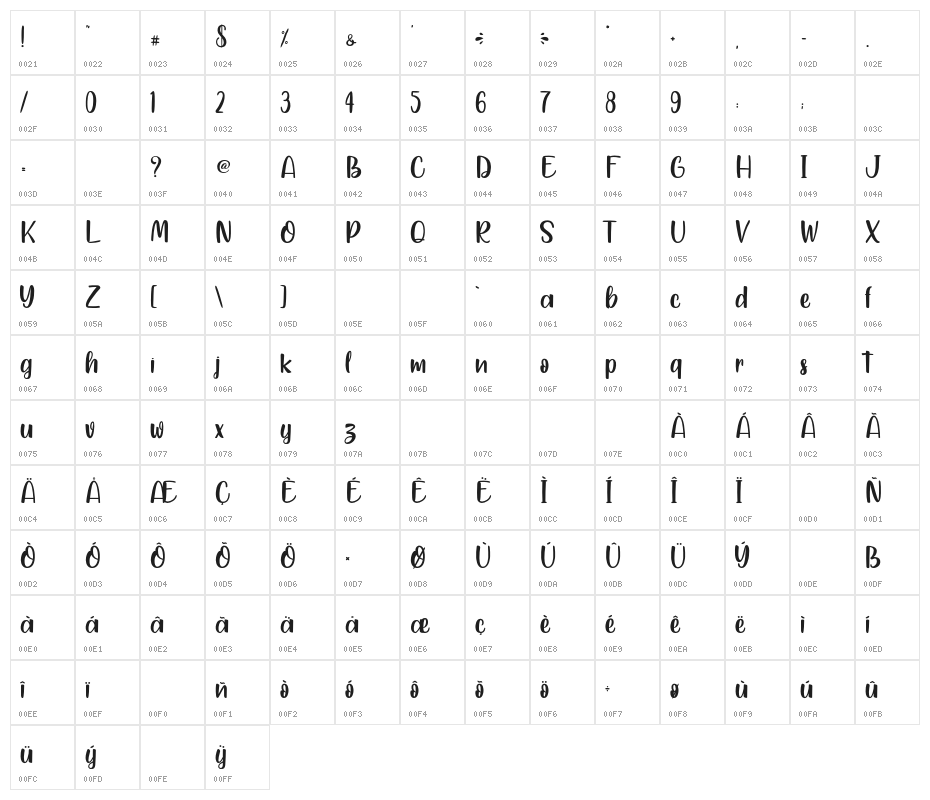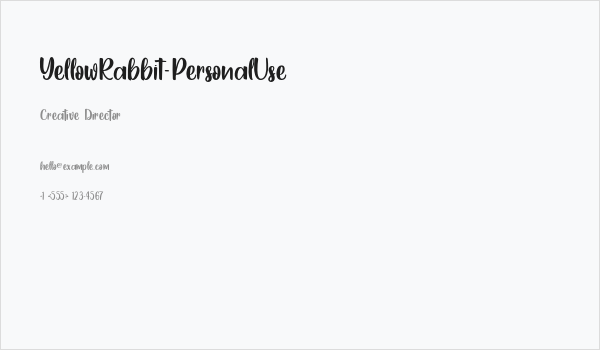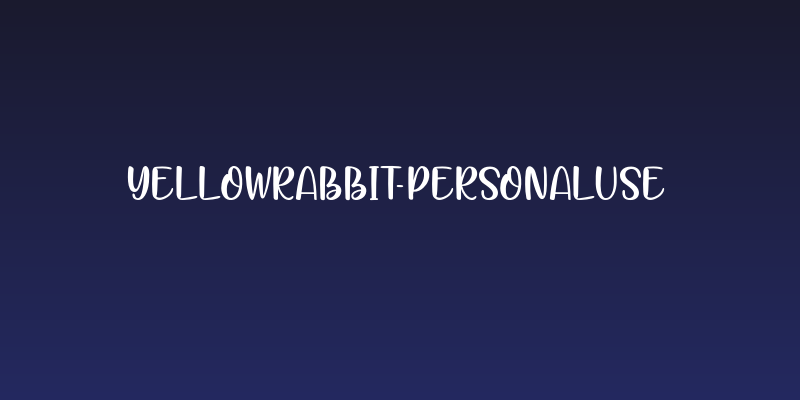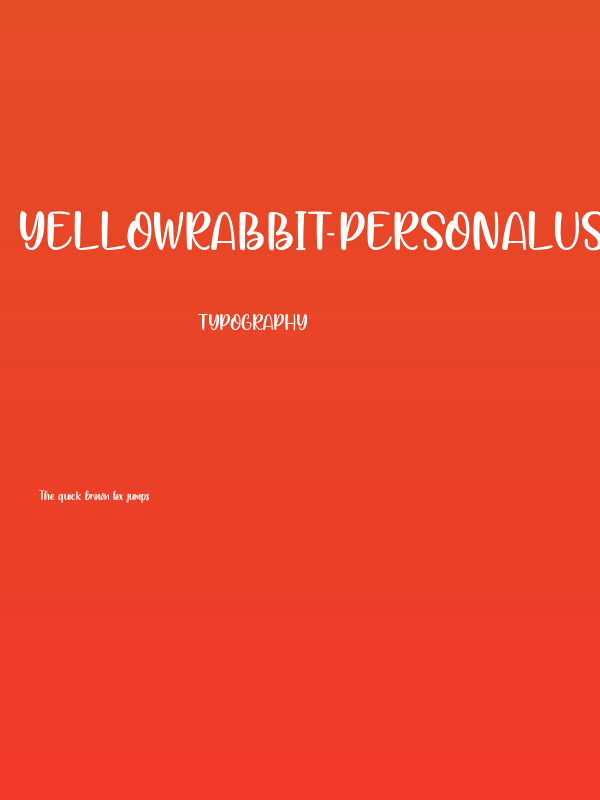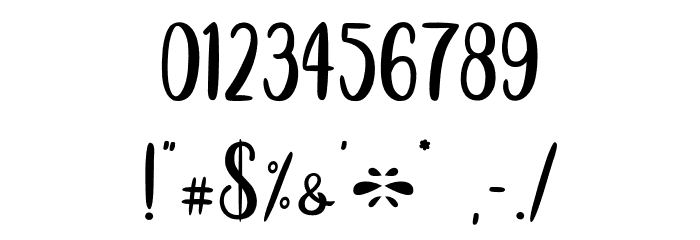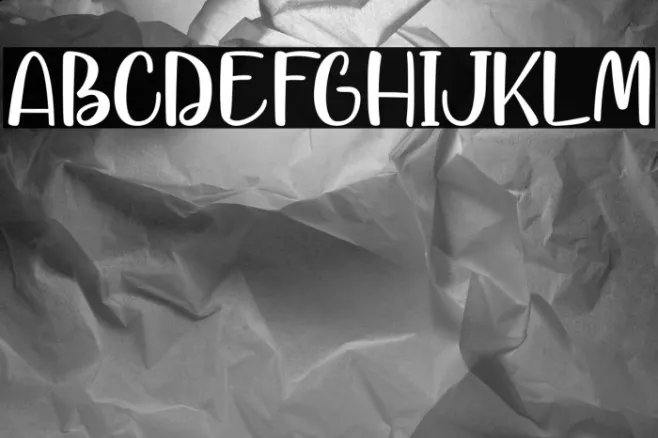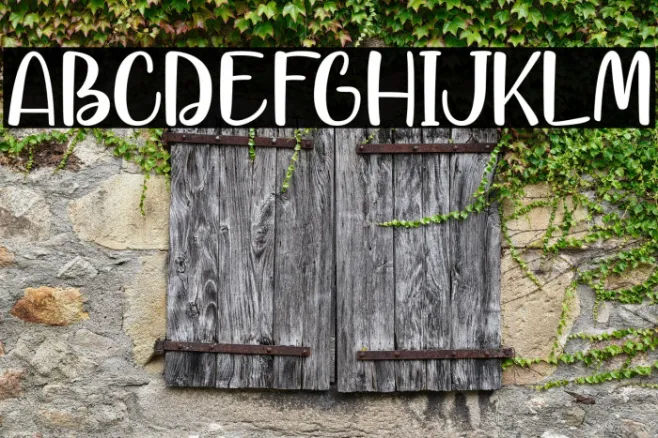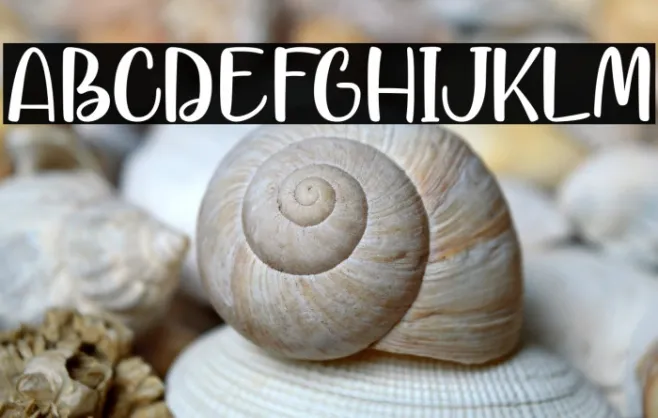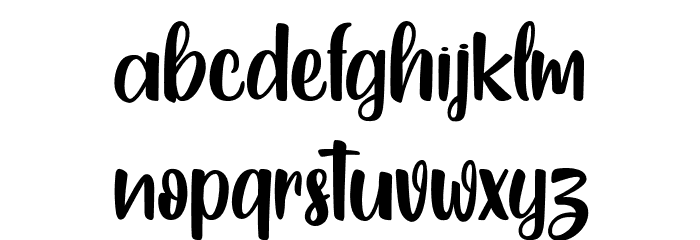
YellowRabbit-PersonalUse Font
YellowRabbit-PersonalUse Description
This playful and whimsical font features a handwritten style with smooth, rounded edges and a friendly appearance. The characters are bold and slightly condensed, giving them a strong presence while maintaining a casual and approachable feel. The uppercase and lowercase letters are well-balanced, with a consistent stroke width that adds to the font's readability. The numbers and special characters are designed to match the overall style, making them suitable for a variety of creative applications. This font is perfect for projects that require a personal touch, such as invitations, greeting cards, or playful branding materials.
| Proposed Projects | Ideal for invitations, greeting cards, playful branding, and creative projects. |